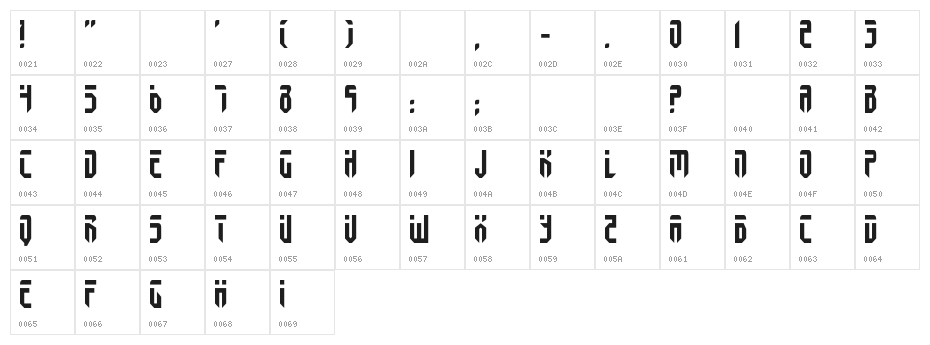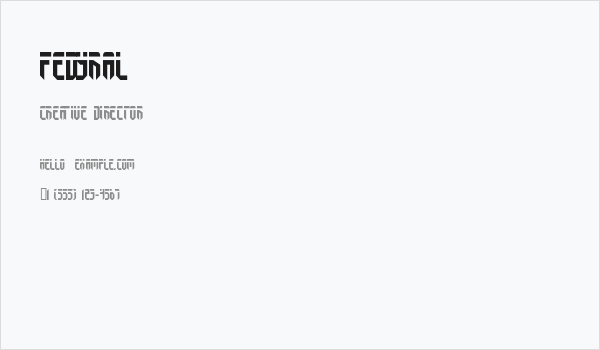
Fedyral Font
Fedyral Description
This font features a bold, geometric design with a futuristic and industrial feel. The characters are constructed with sharp angles and straight lines, creating a sense of precision and modernity. The uppercase and lowercase letters maintain a consistent height, contributing to a uniform appearance. The numerals and special characters follow the same angular style, ensuring cohesion across all elements. The font's unique structure makes it stand out, ideal for projects that require a strong visual impact.
| Proposed Projects | Ideal for branding, posters, video game graphics, and sci-fi themed designs. |